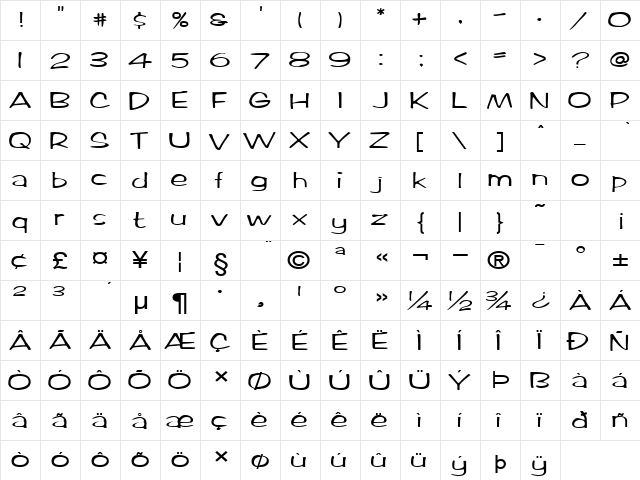
Marlo-Extended Normal
Design Context for Marlo-Extended Typeface
Marlo-Extended is a composed and adaptable typeface that performs quietly and consistently across a wide range of design contexts.